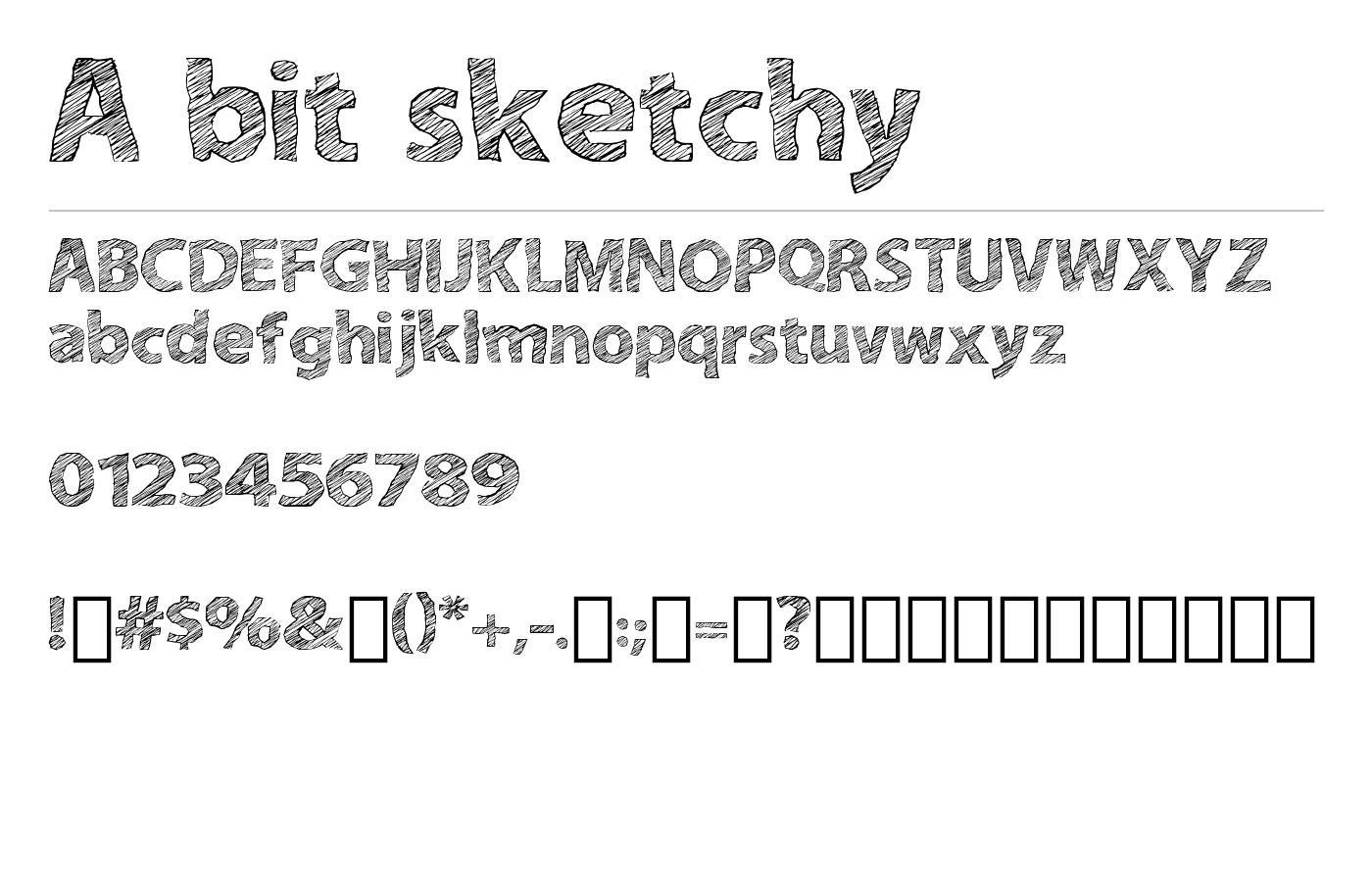
A bit sketchy is a playful sans serif font with a hand-drawn, textured style that mimics pencil shading. Its irregular, chunky letterforms bring a casual, creative feel, making it ideal for informal designs like children's materials, crafts branding, and fun headlines. This font adds a unique, approachable personality to projects needing a relaxed and artistic touch.
A bit sketchy Font